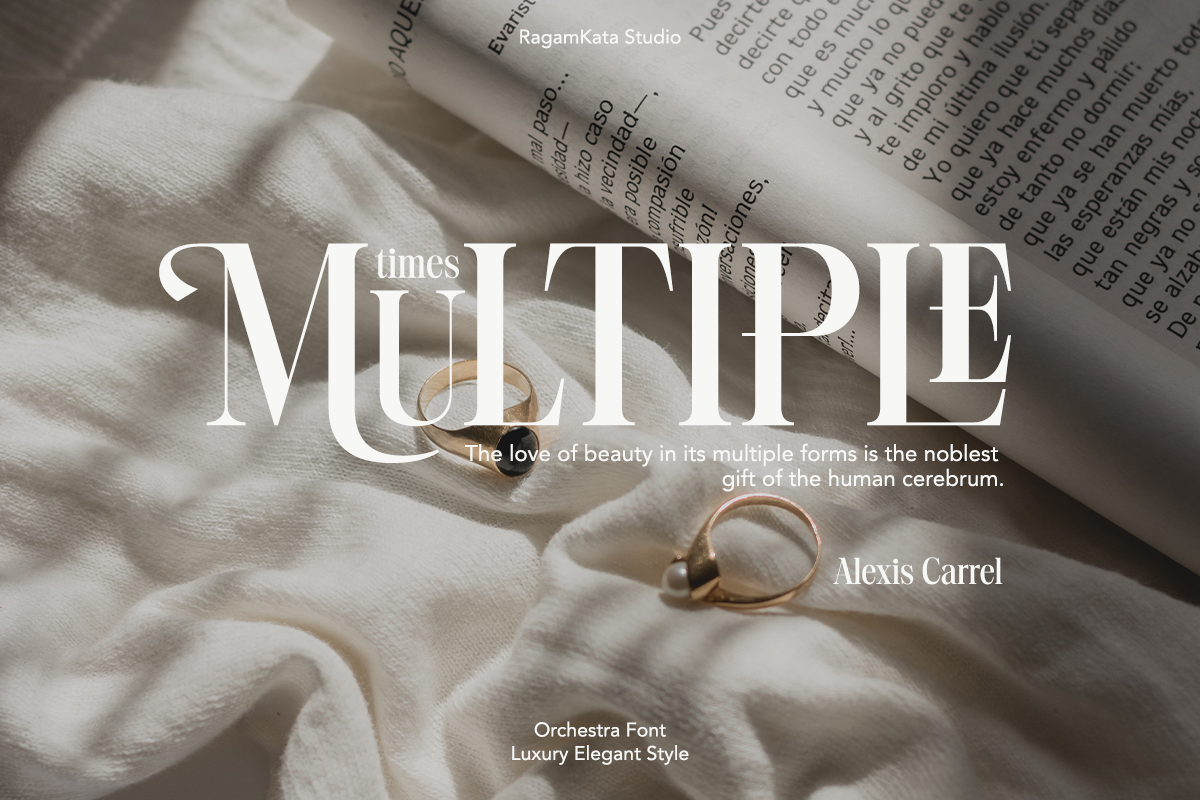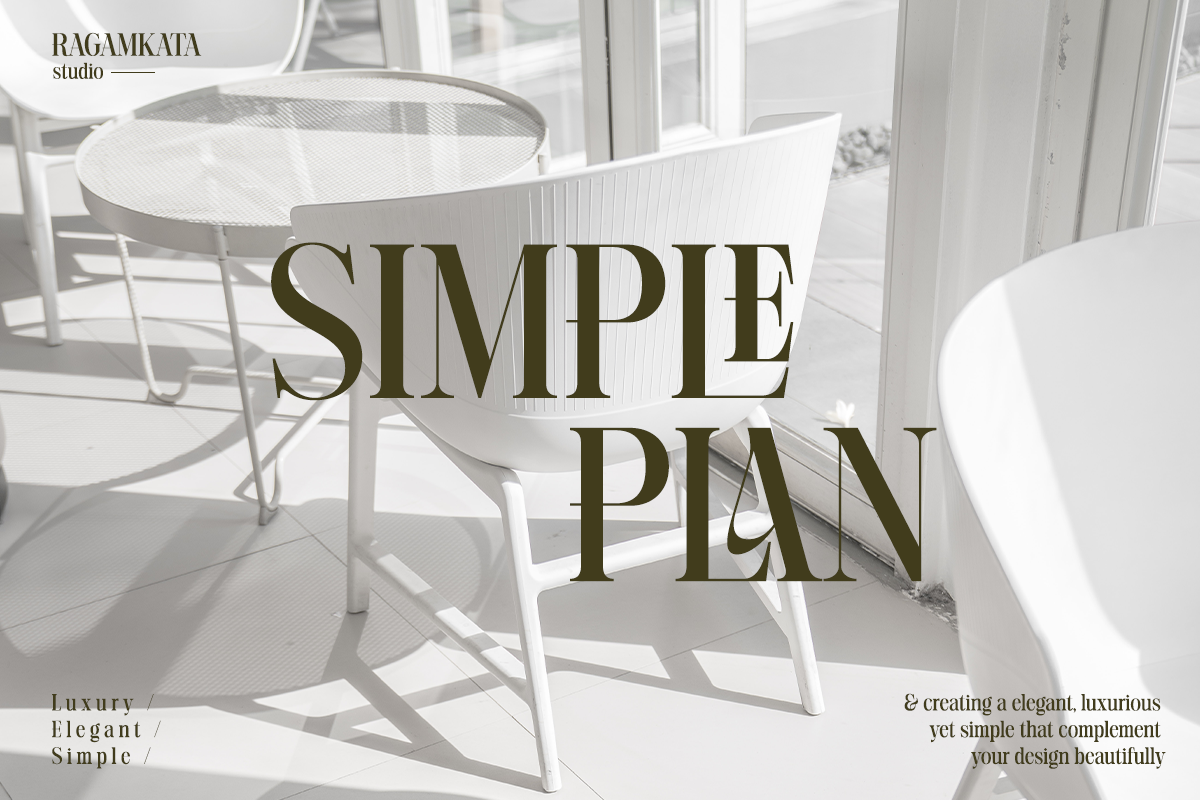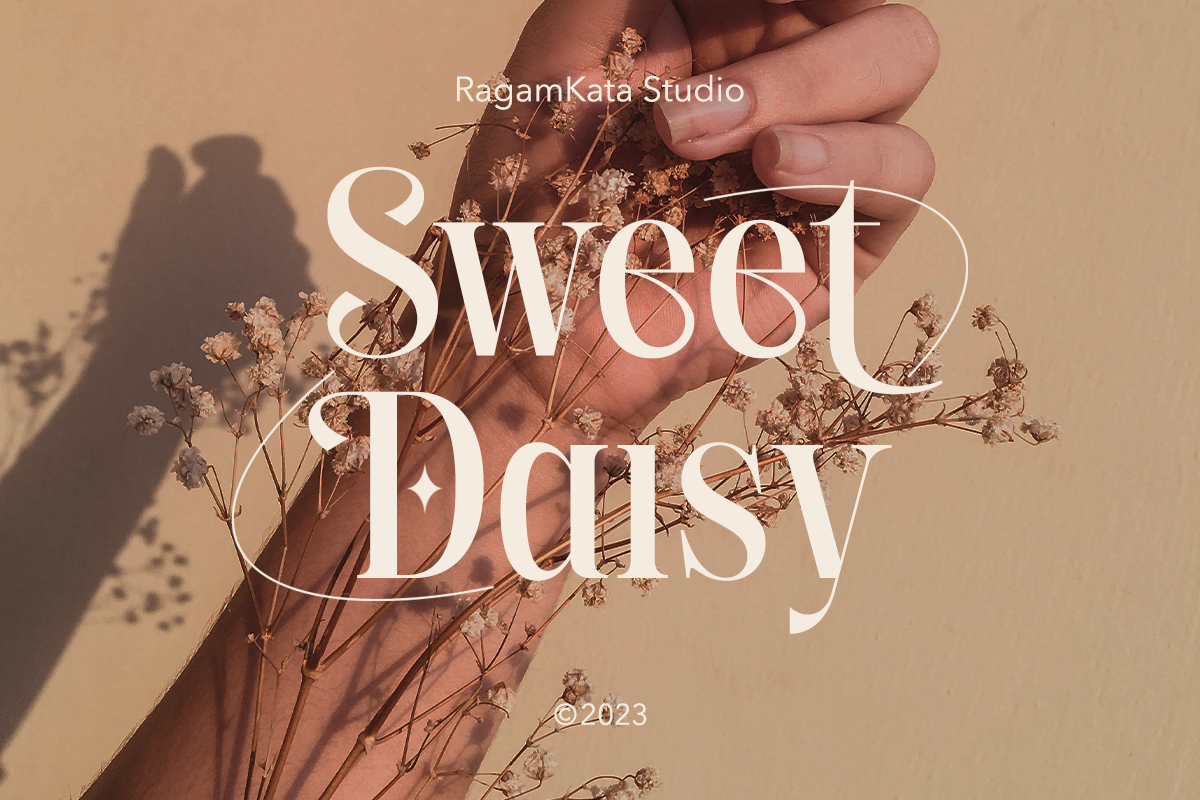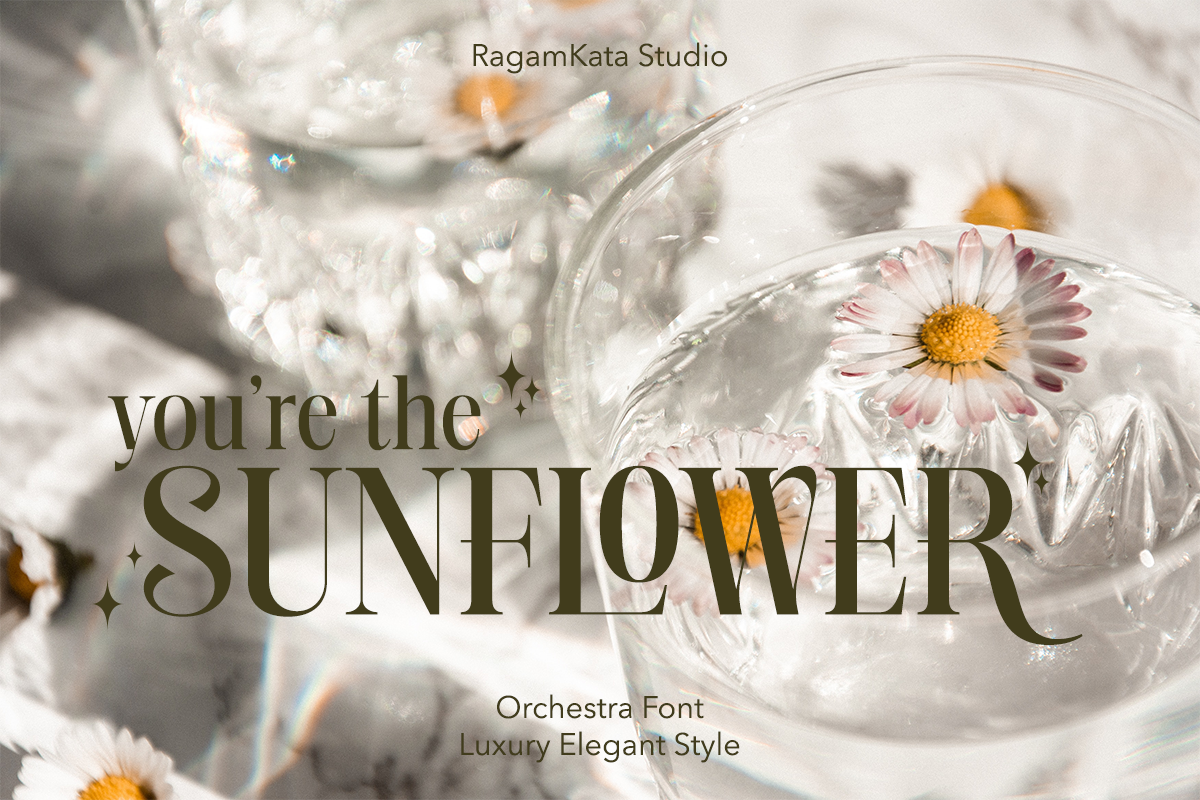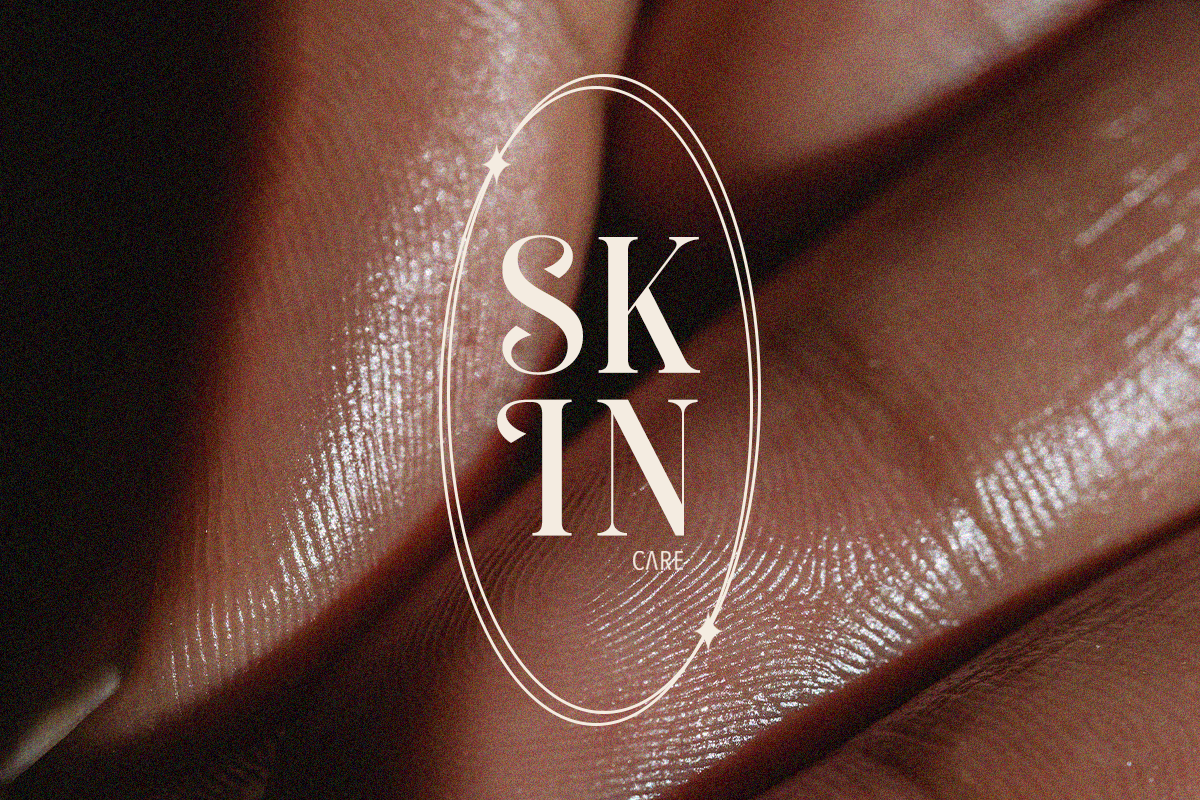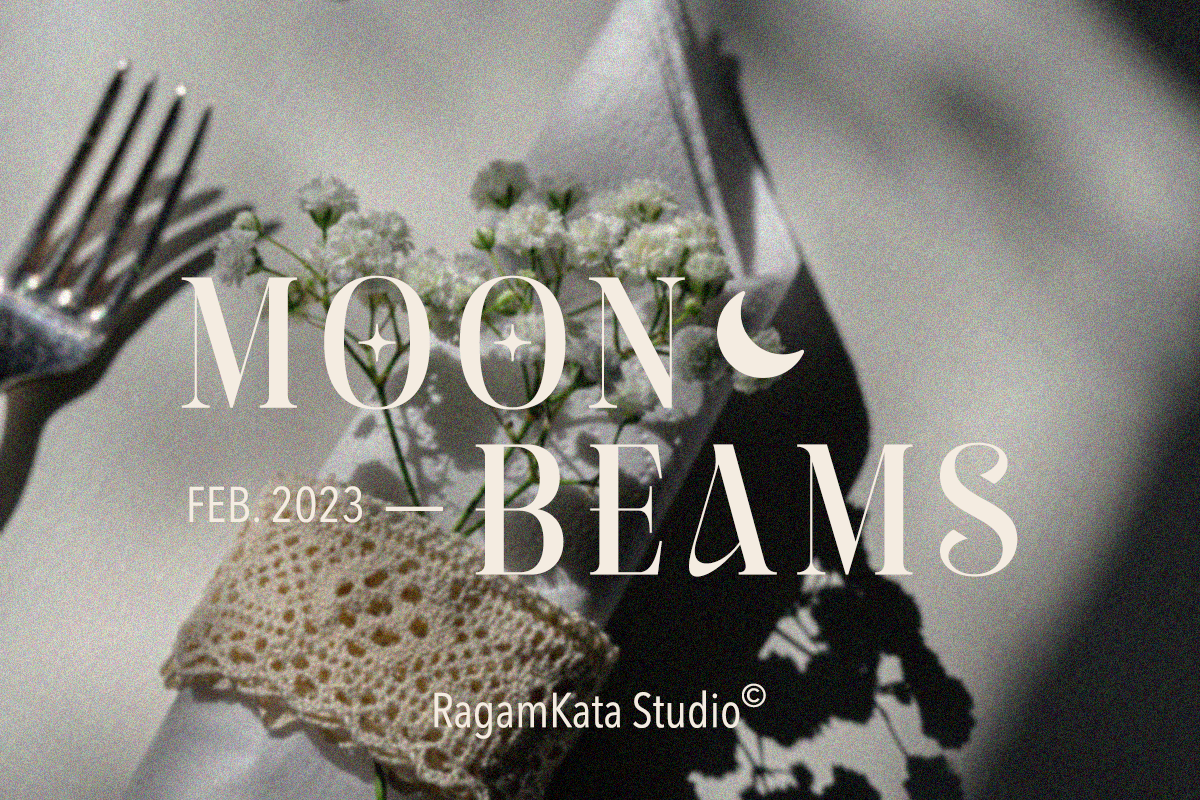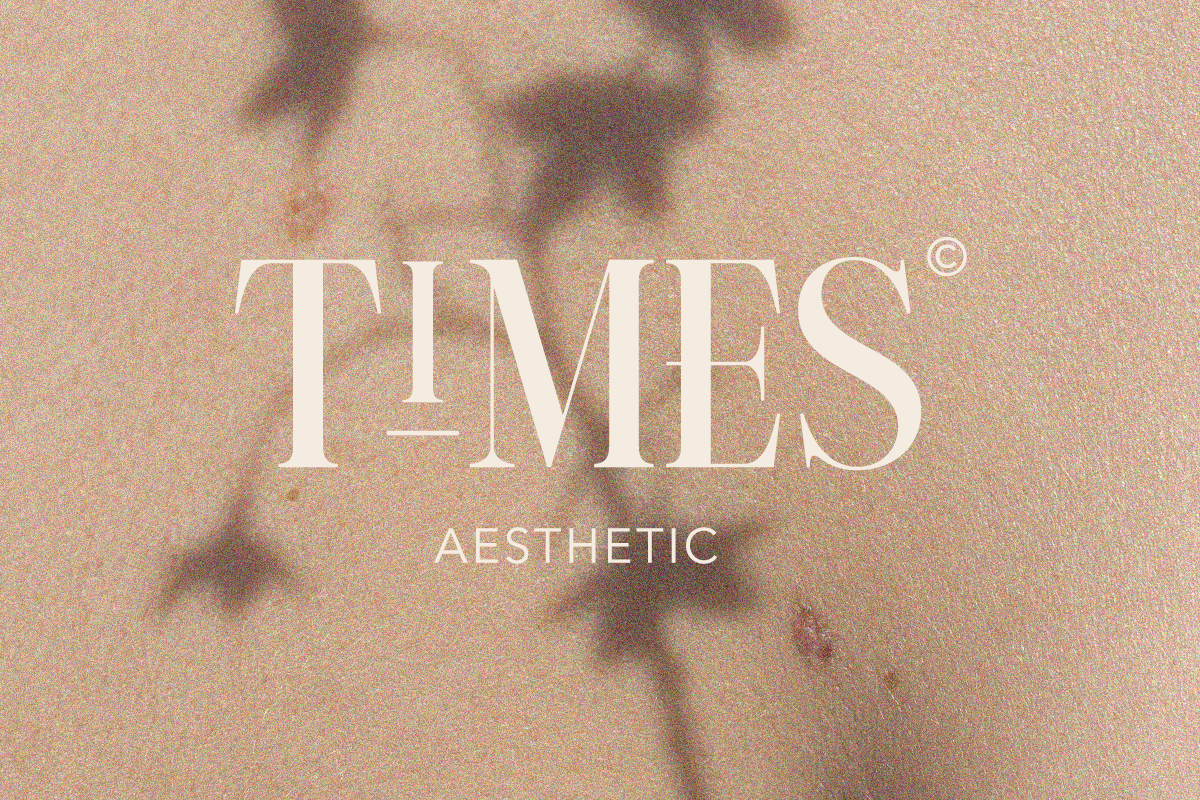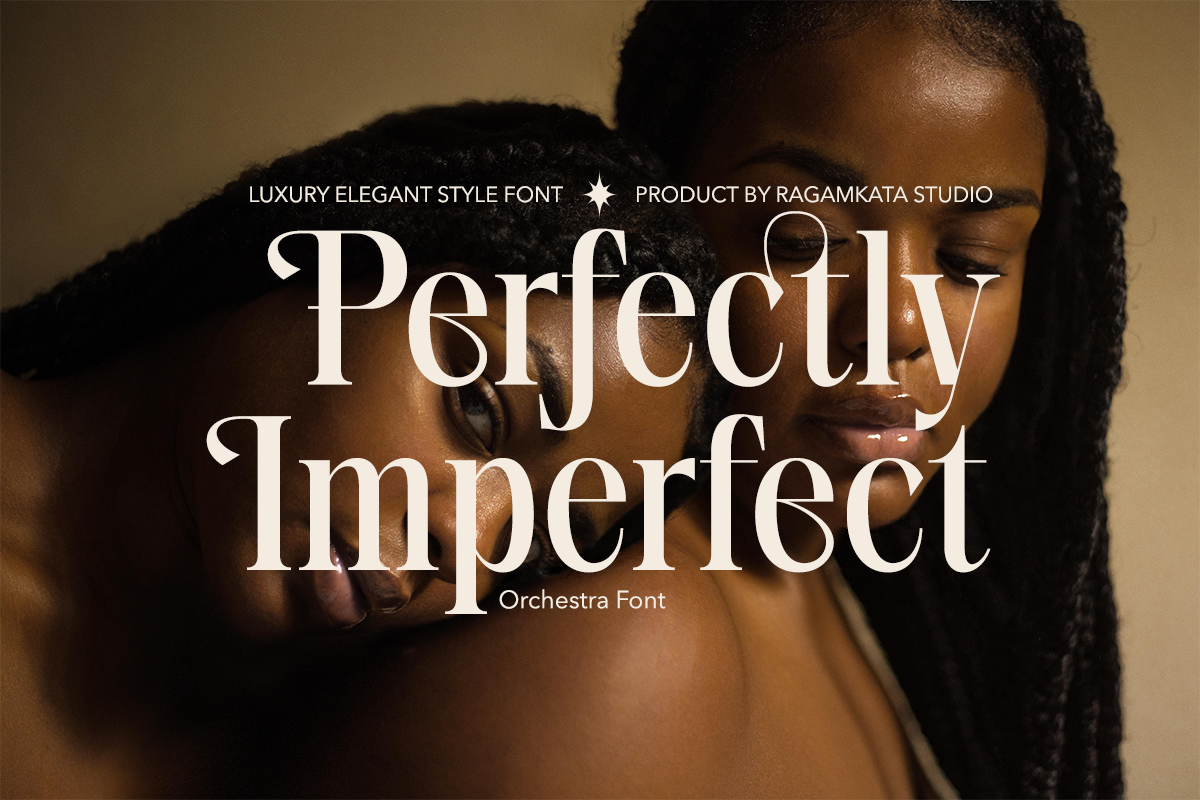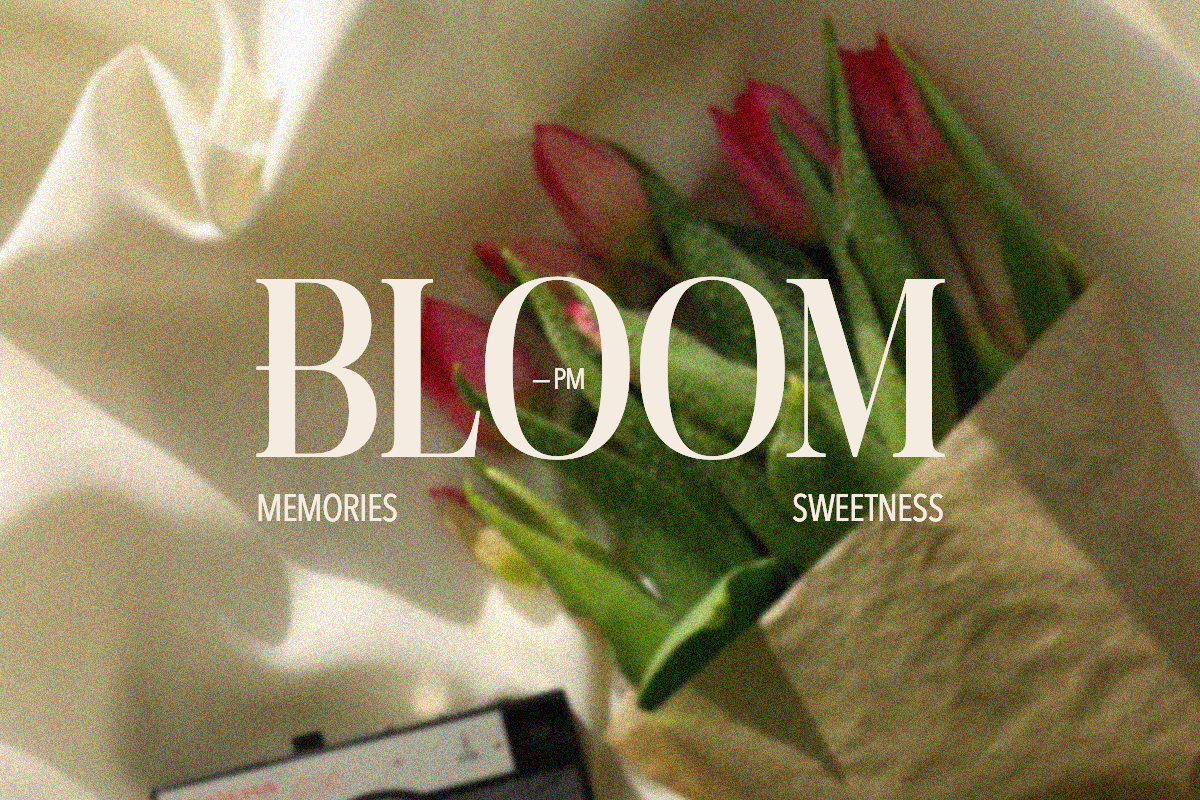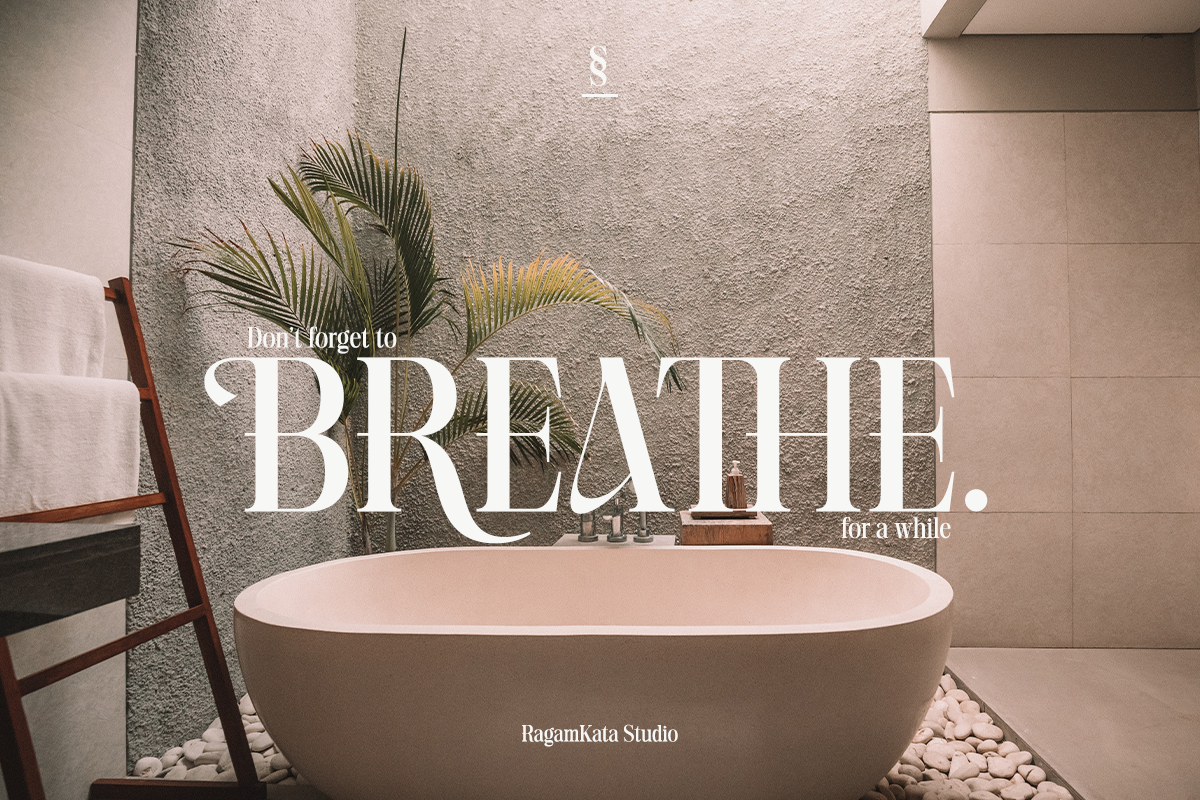
Orchestra - Modern Elegant Serif
Orchestra, this font is as elegant as its name. It’s unique look makes it incredibly authentic serif font. The font gives off an elegant and classic feel, while still appearing modern and in line with the current design trends. Orchestra is a well- suited font for a high-end design, makes it more eye-catching. Orchestra will make your designs, such as invitations, posters, product package design, and many more, looks more exclusive and luxurious. Enhance your design by the elegant yet classic appearance of Orchestra.